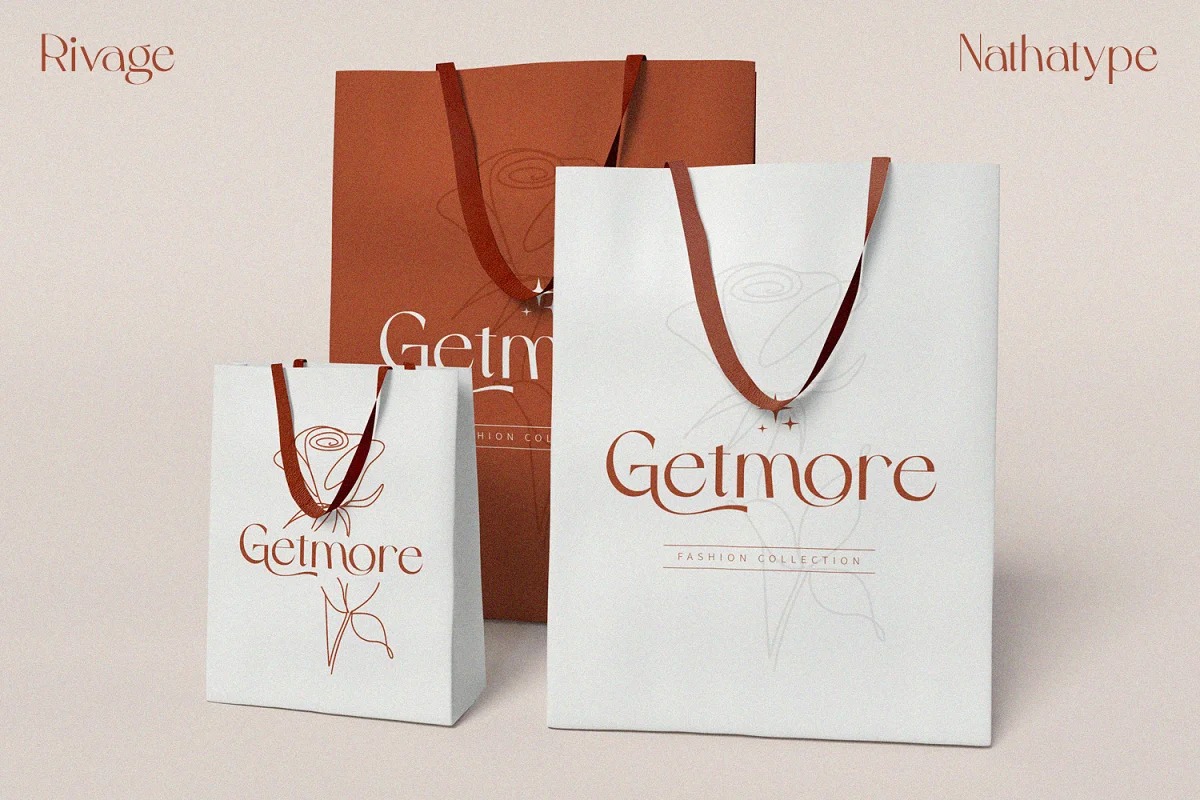
Rivage Sans Serif Font
This is a modern sans serif font created by Din Studio with an alternative to lowercase. You can play alternatives to add a modern impression to the font you will use. This font is quite enigmatic, in that its geometric but also has an open curves. The result is a font that looks friendly and professional at the same time. Also, Rivage is versatile enough to be used on tittle or body text.